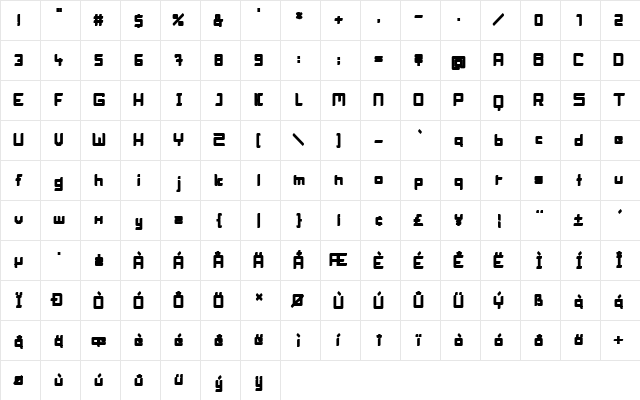
BlockHead Fat
Design Context for BlockHead Typeface
BlockHead is a composed and adaptable typeface that performs quietly and consistently across a wide range of design contexts.